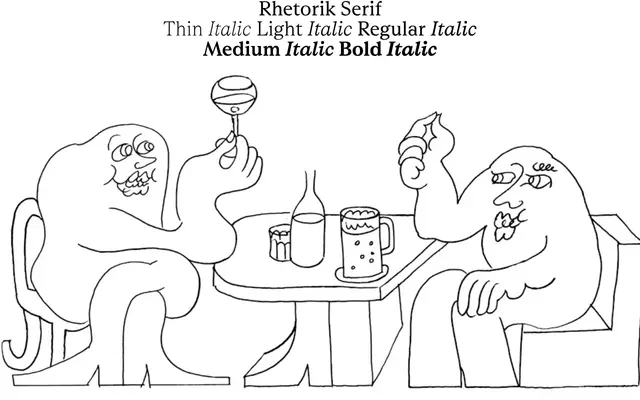
Rhetorik Serif specimen from AllCaps
A five-weight contemporary serif from AllCaps with full italic coverage and an extensive OpenType feature set, pitched at editorial and architectural contexts.
Running from Thin to Bold with matching italics across all five weights, it covers a wide range of typographic applications from large display settings to small running text. The specimen copy draws heavily on architectural and urban planning references, suggesting a rational, modernist sensibility in the design. Three stylistic sets and a thorough array of figure options, fractions and alternates extend its utility for complex editorial and data-driven layouts.
A contemporary serif with a broad weight range from Thin to Bold, carrying a rational, architectural character suited to editorial and identity work. The specimen copy references architecture and urban planning, pointing to a design sensibility aligned with modernist graphic traditions.